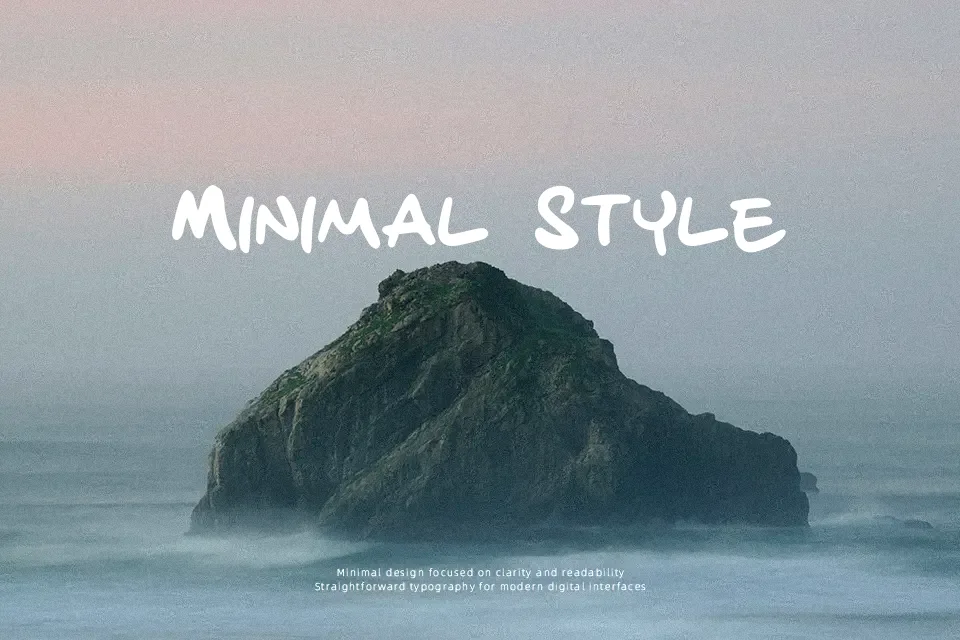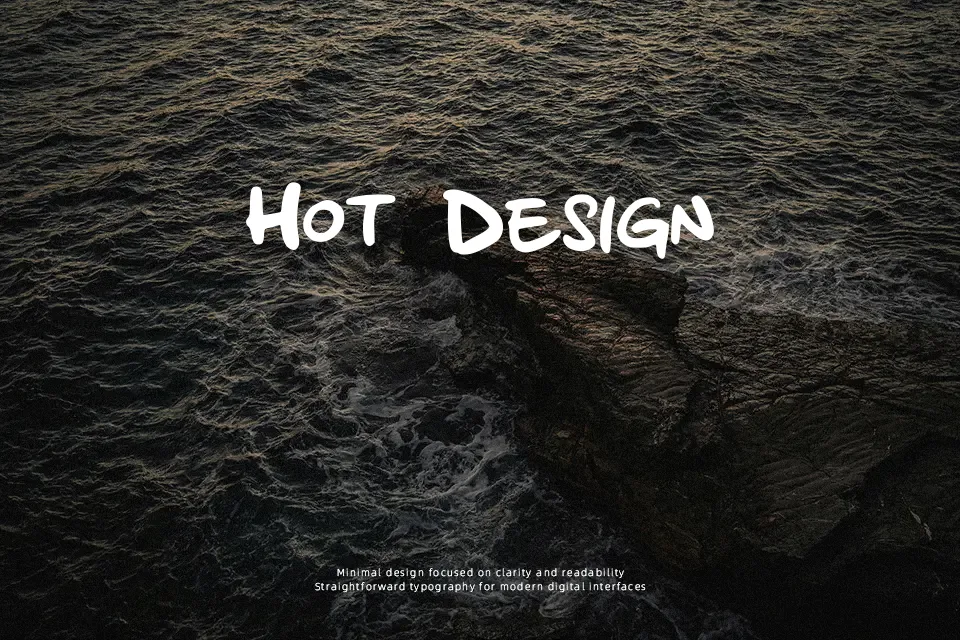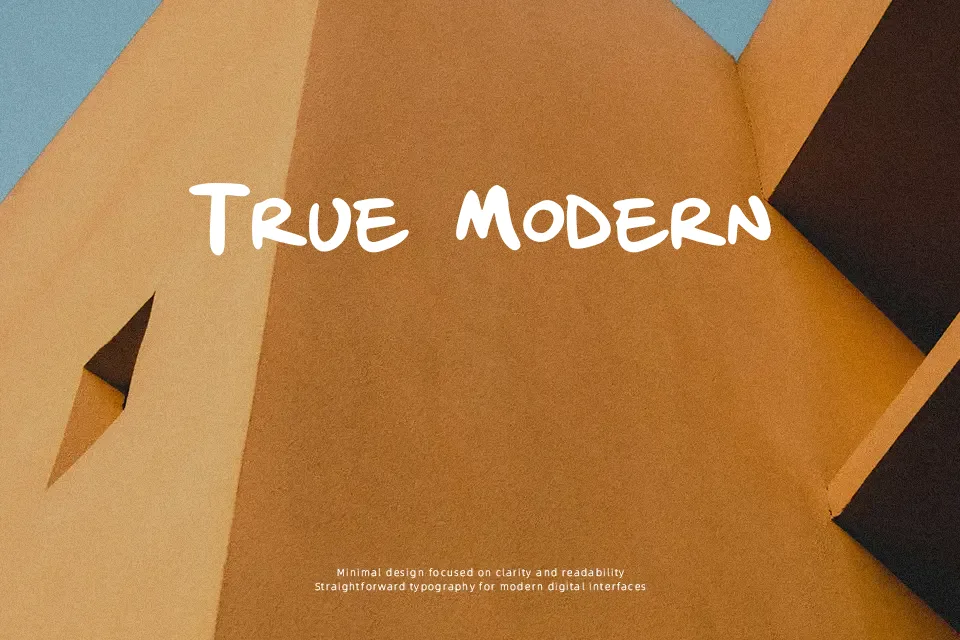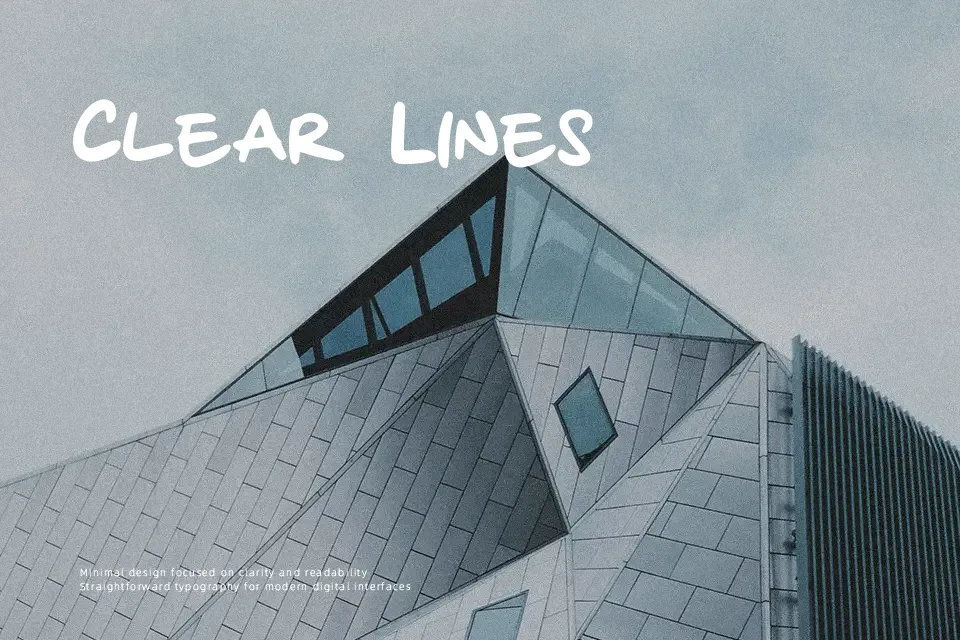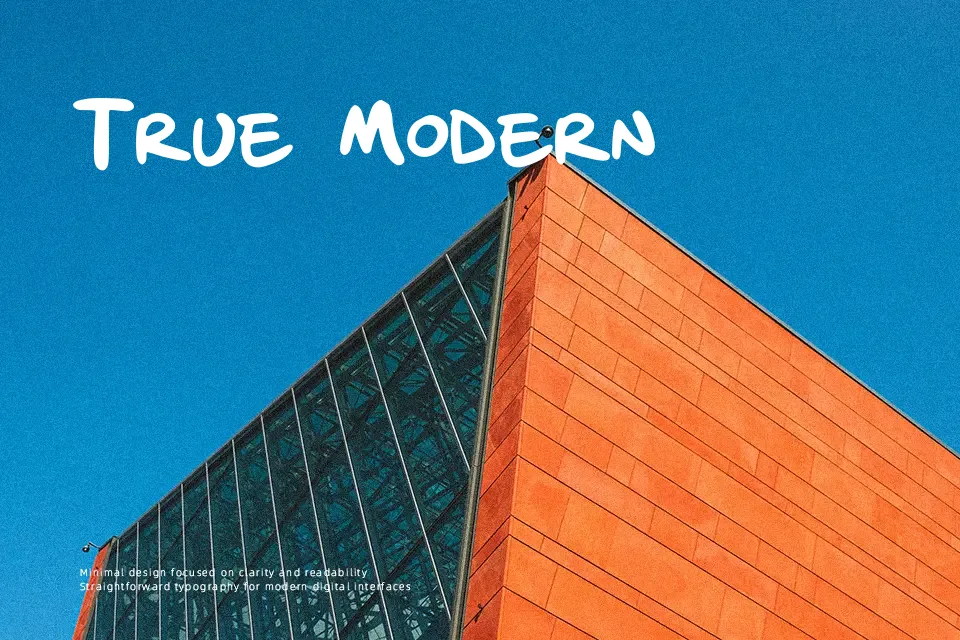
Alex Bold Font
Alex Bold Font leans into thick, rounded strokes and loose comic-style drawing, giving every word a relaxed, hand-drawn feel. The letters are wide, with generous counters and friendly curves that read clearly at larger sizes while still looking informal and energetic. This makes it useful for kids’ event posters, playful logo experiments, social media graphics, or headings on fun-themed packaging where personality matters more than precision. However, the exaggerated forms and informal structure quickly become tiring in dense paragraphs or serious corporate materials, so it works best when used sparingly as a display accent rather than a workhorse text face.
kids event posters
playful logo wordmarks
cartoon-style social graphics
minimalist corporate branding
editorial body copy
Perfect for branding, headline, and logo, with a artistic and comic style.